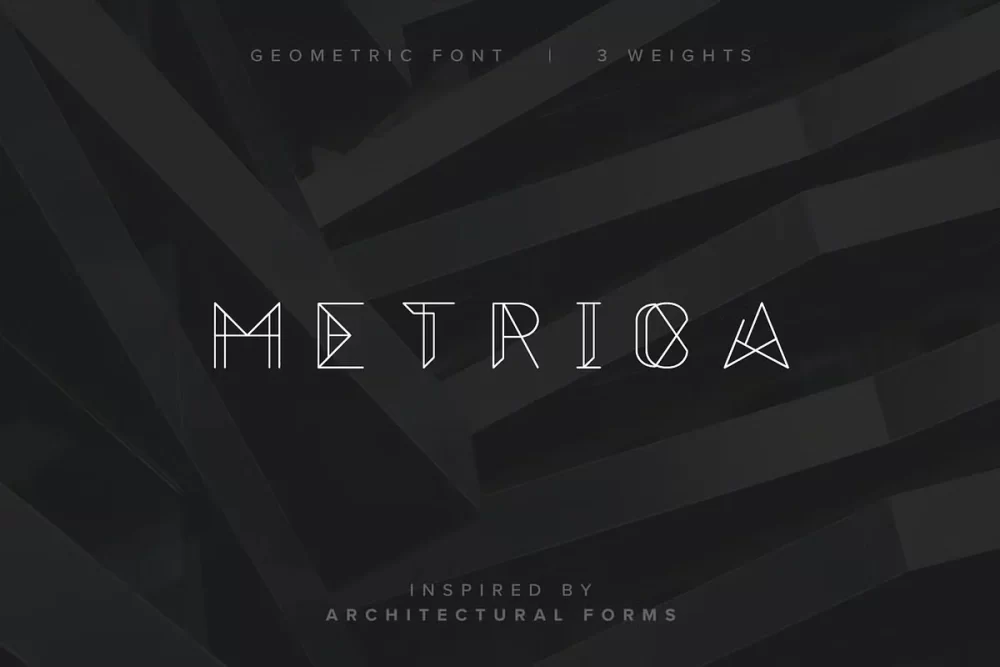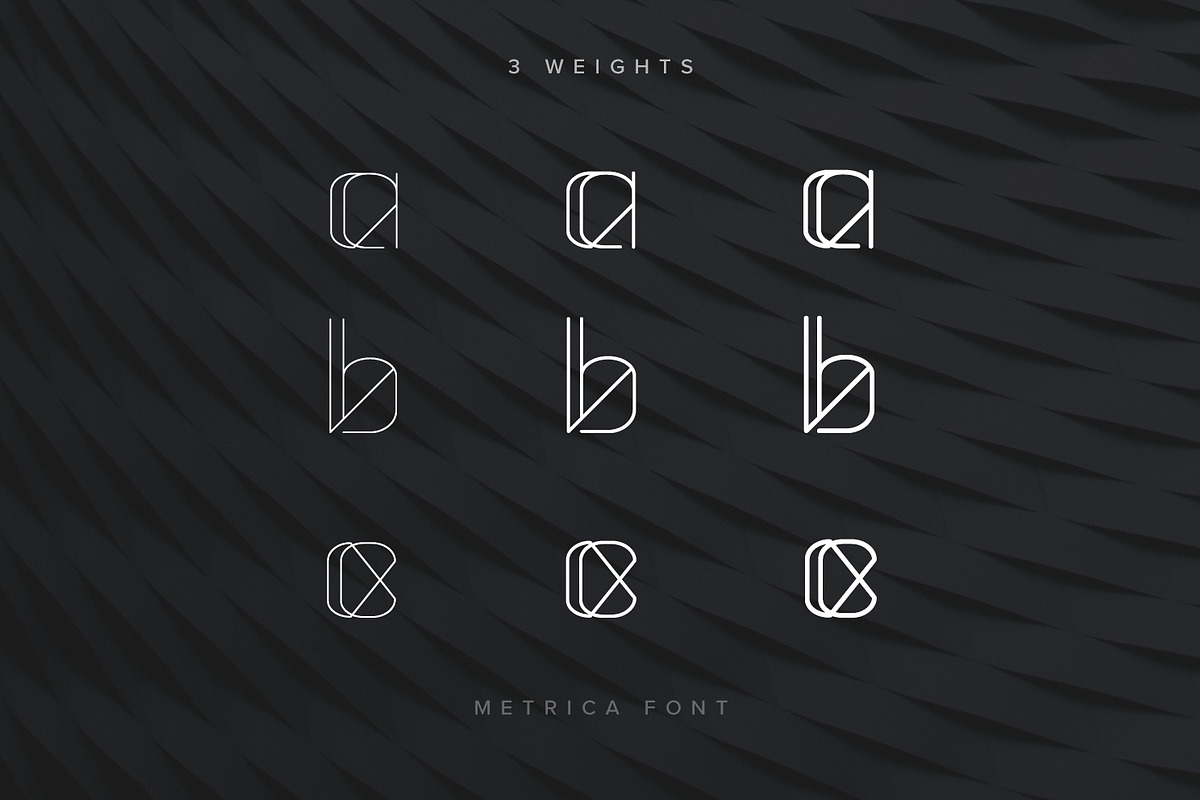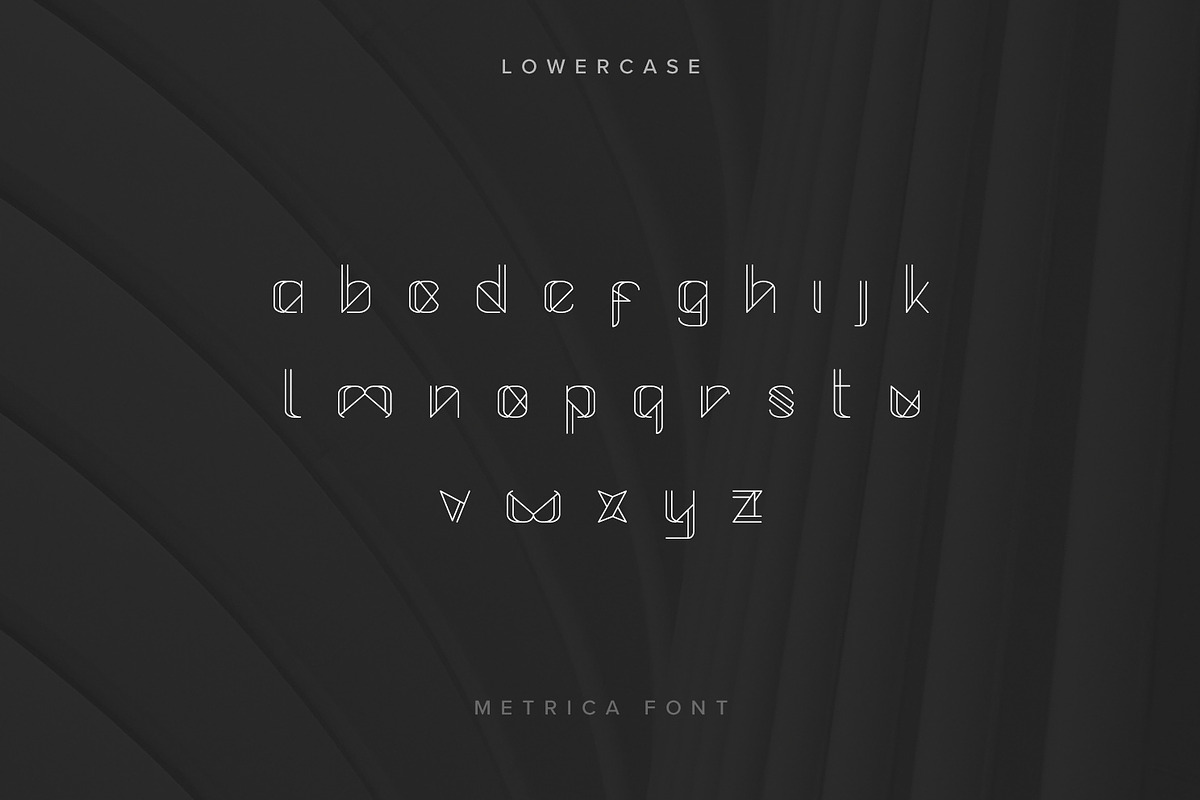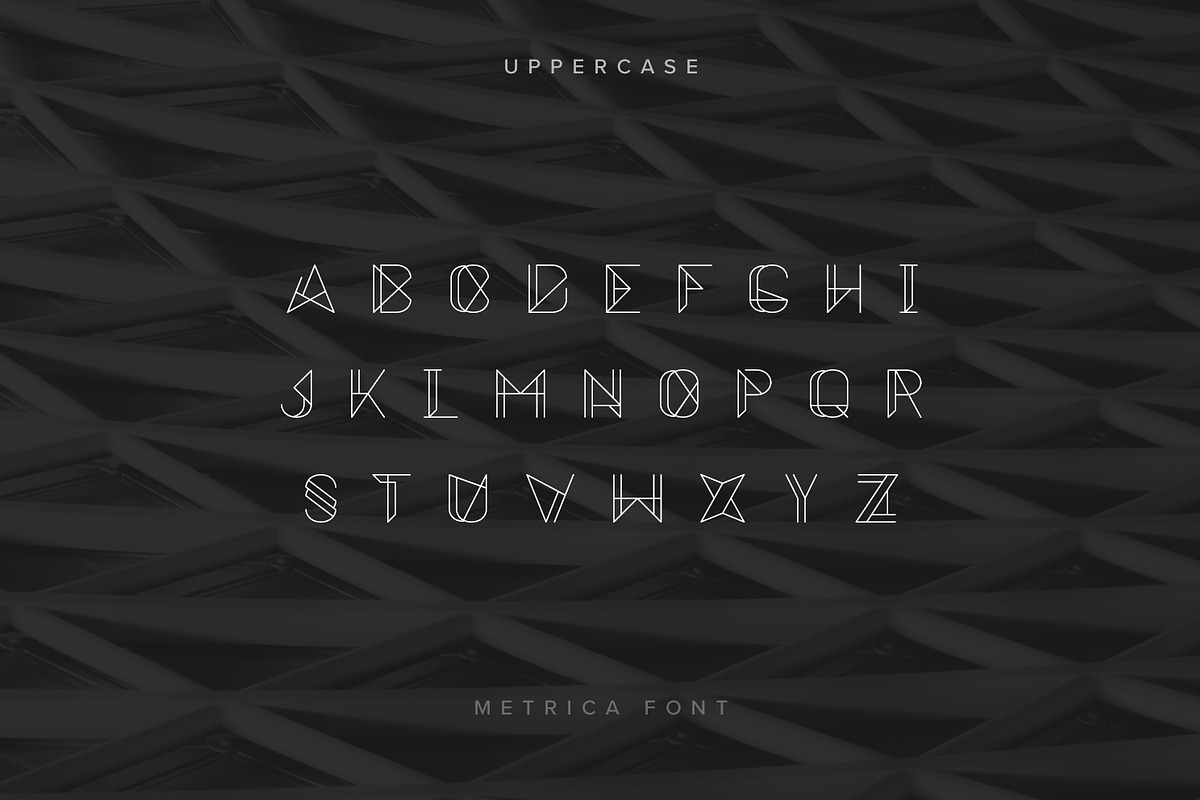
Inspired by architectural forms and negative spaces, Metrica presents three solid weights in both upper and lowercase. Perfect for print and web design, Metrica offers you a structured font that fits well in digital, editorial and video projects. Metrica the perfect addition to your next project.